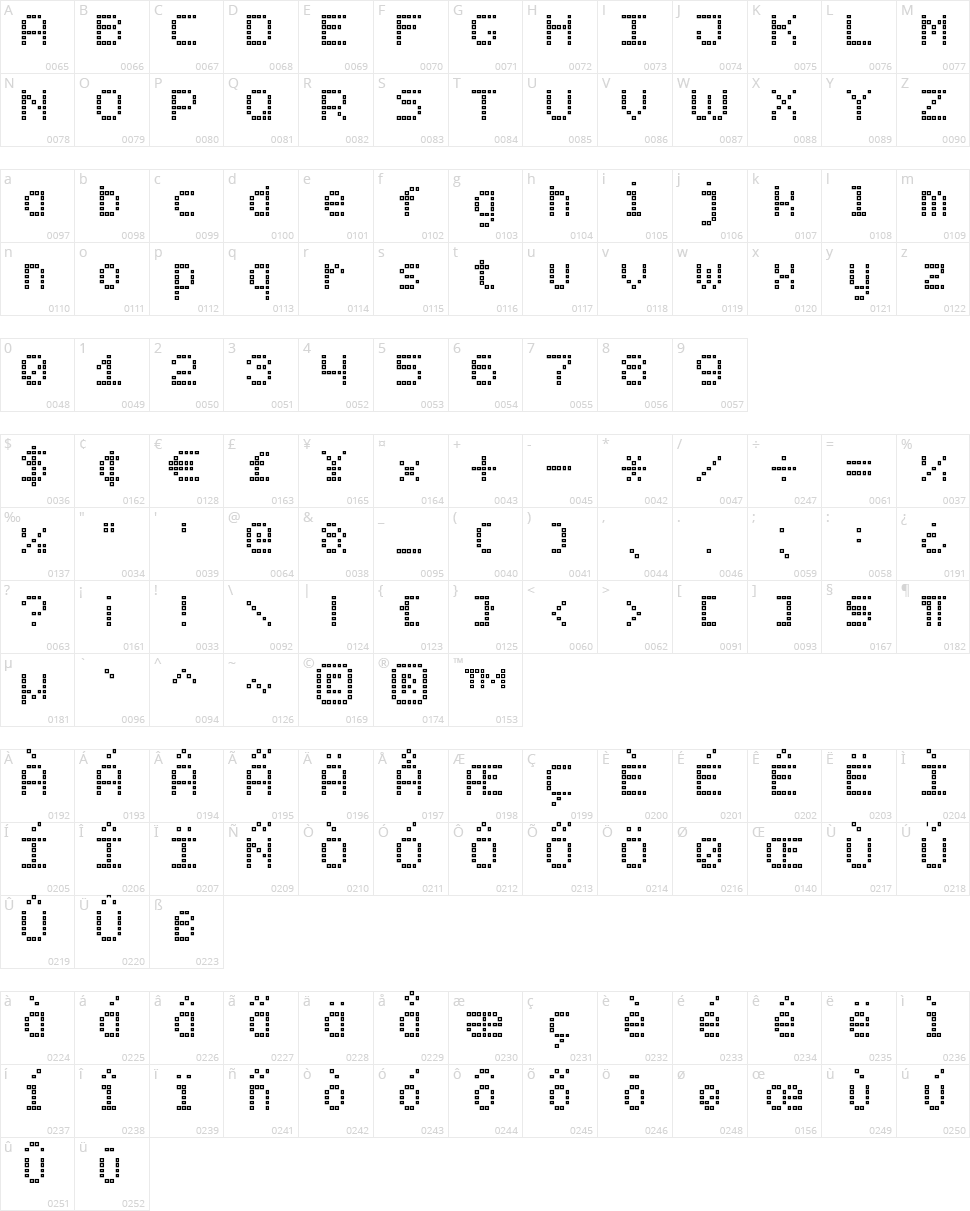
Brick LED-7
Original font created in style a LED (Light Emitting Diode) matrix. Latin and Cyrillic code pages are supported.
Sizenko Alexander
Style-7
Designer Name: Style-7